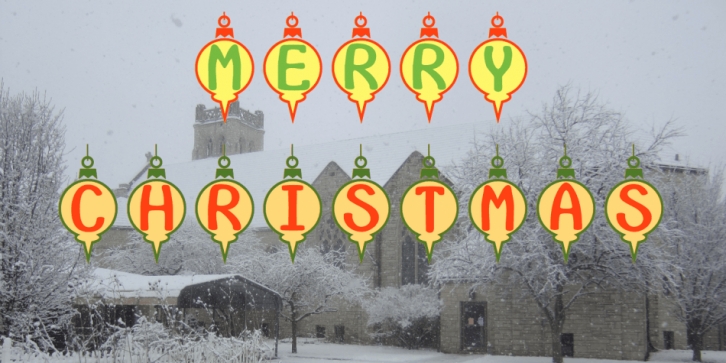
Designed by Robert Schenk, InsideLettersXmas is a monograms and novelty font published by Ingrimayne Type.
InsideLettersXmas puts letters on Christmas tree ornaments. There is a note in the collateral on how to make lettering with this typeface more colorful.